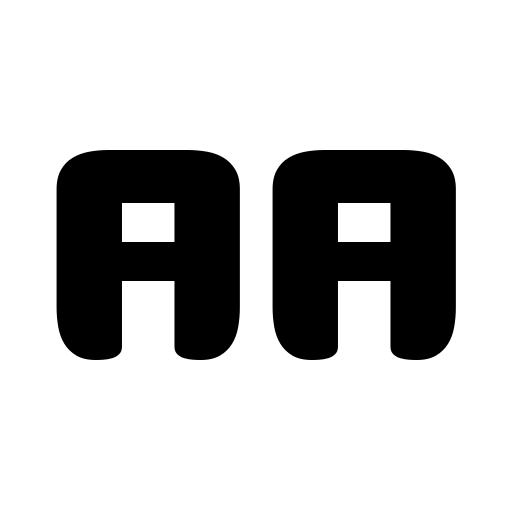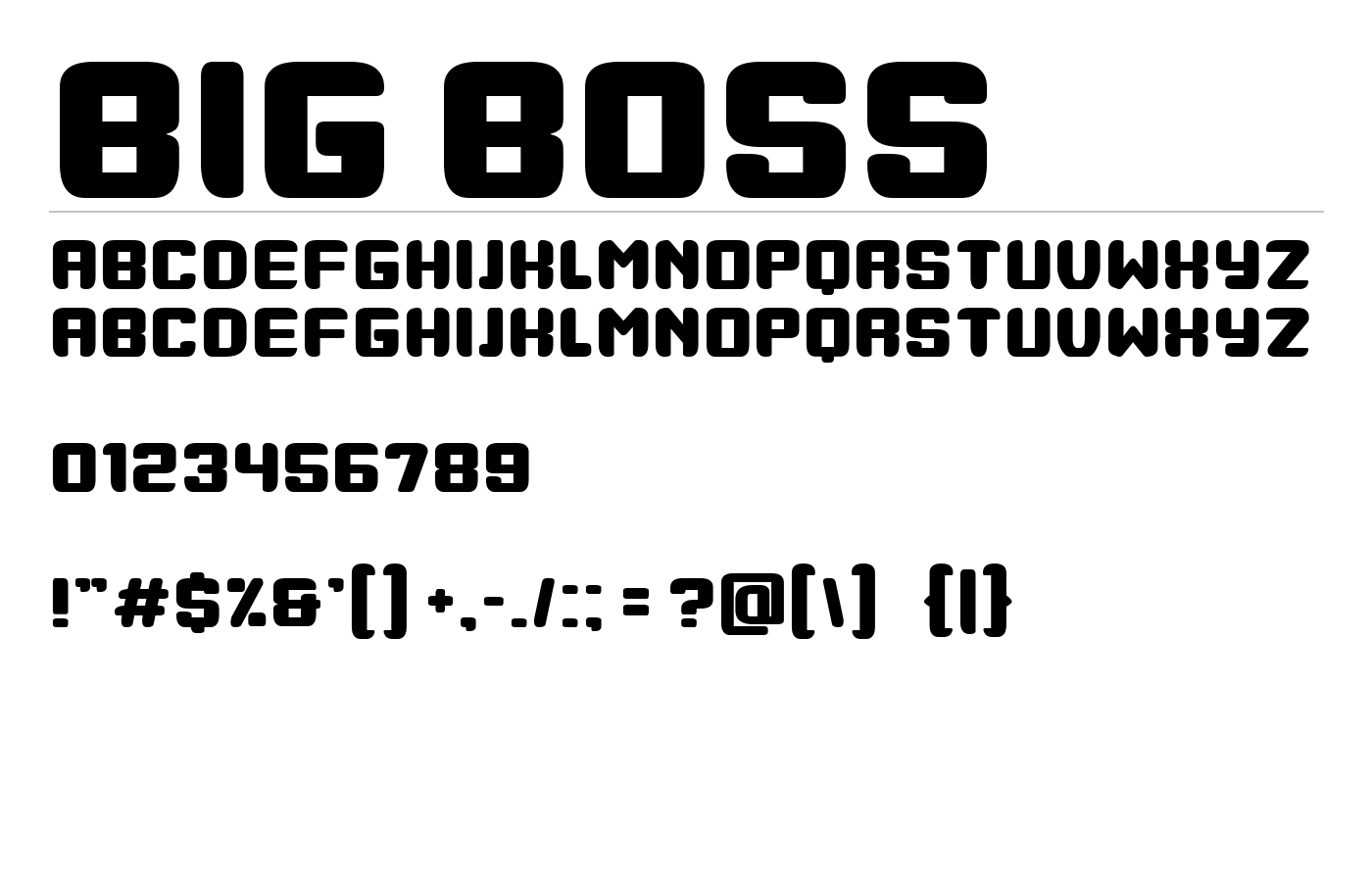
Big Boss is a bold, geometric sans serif font with a strong, commanding presence. Its heavy weight, squared shapes, and tight spacing create a sturdy and modern look that works well for impactful headlines, logos, and branding projects that need a confident, assertive style. This font is perfect for designs that want to communicate strength and authority while maintaining a clean, contemporary feel.
Big Boss Font
About Big Boss Font